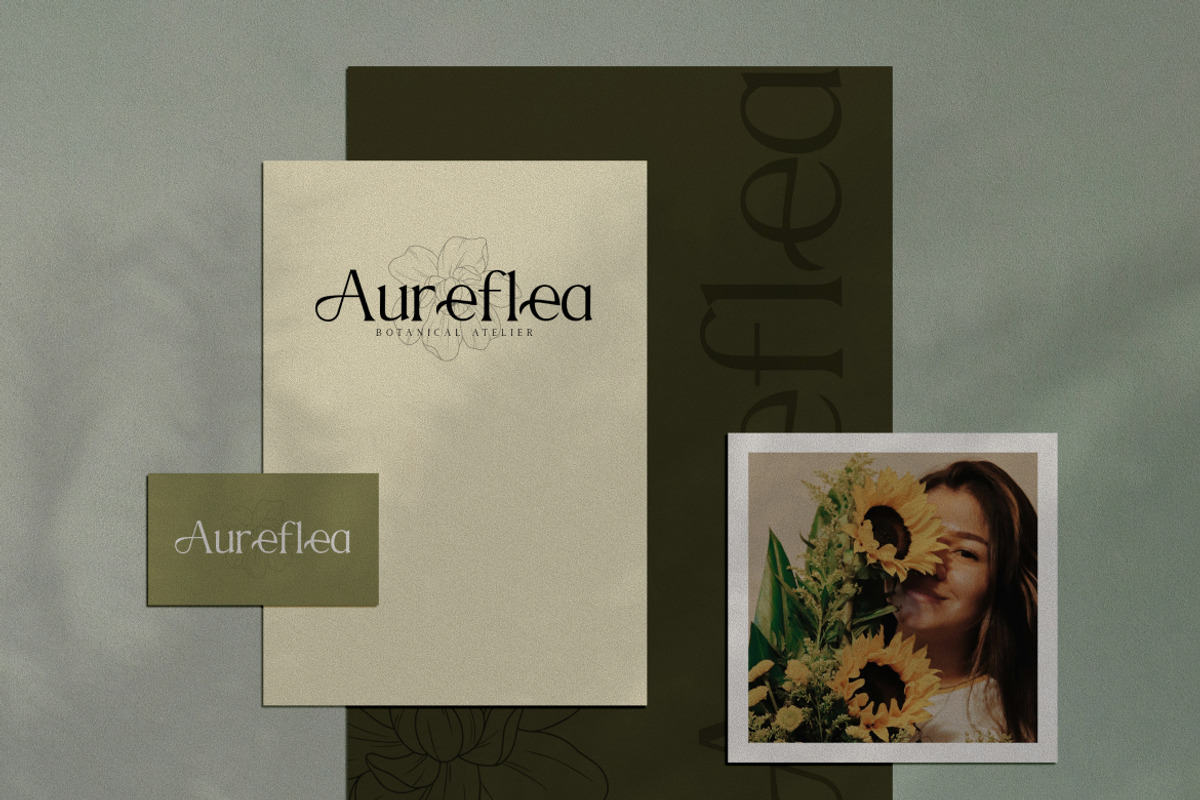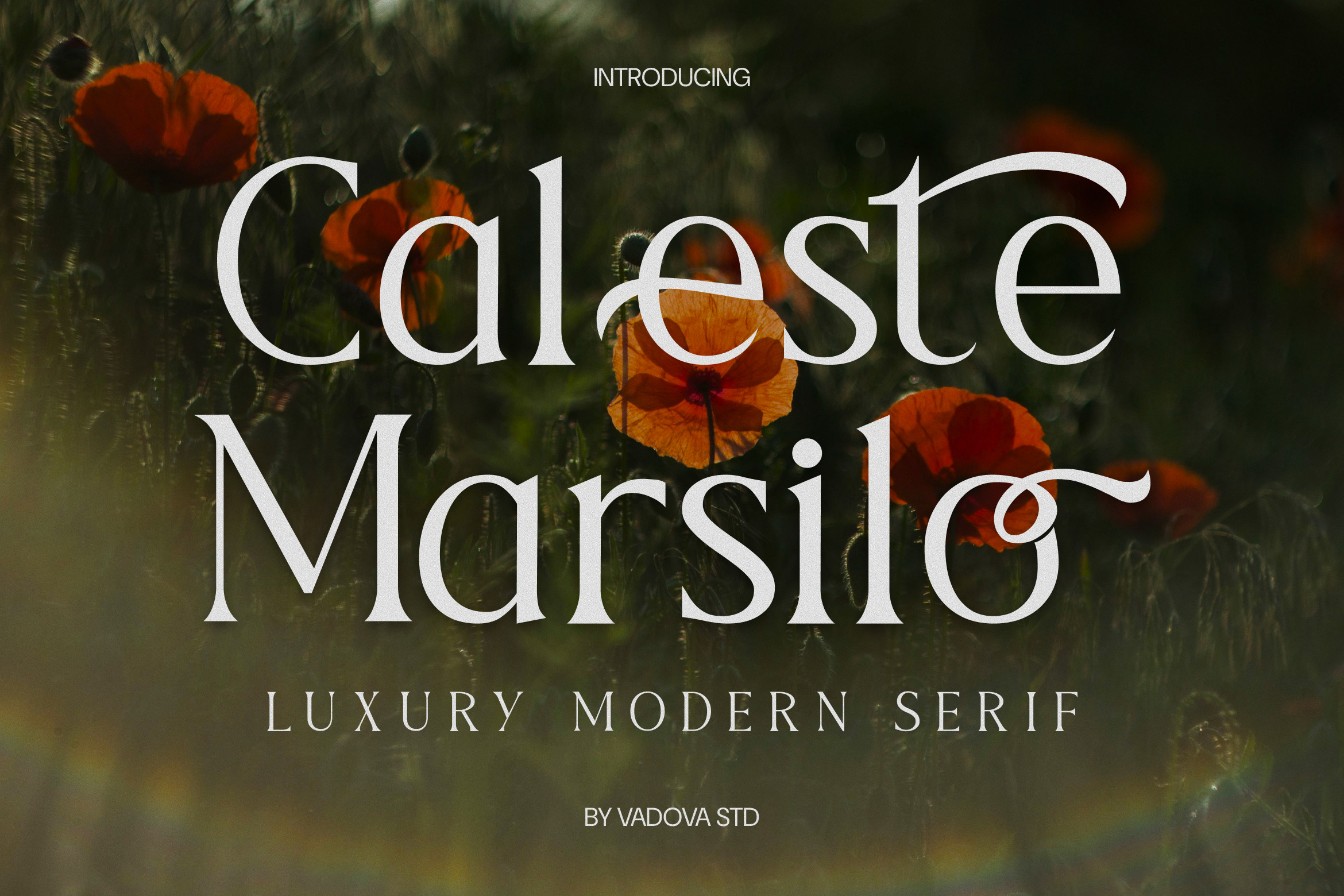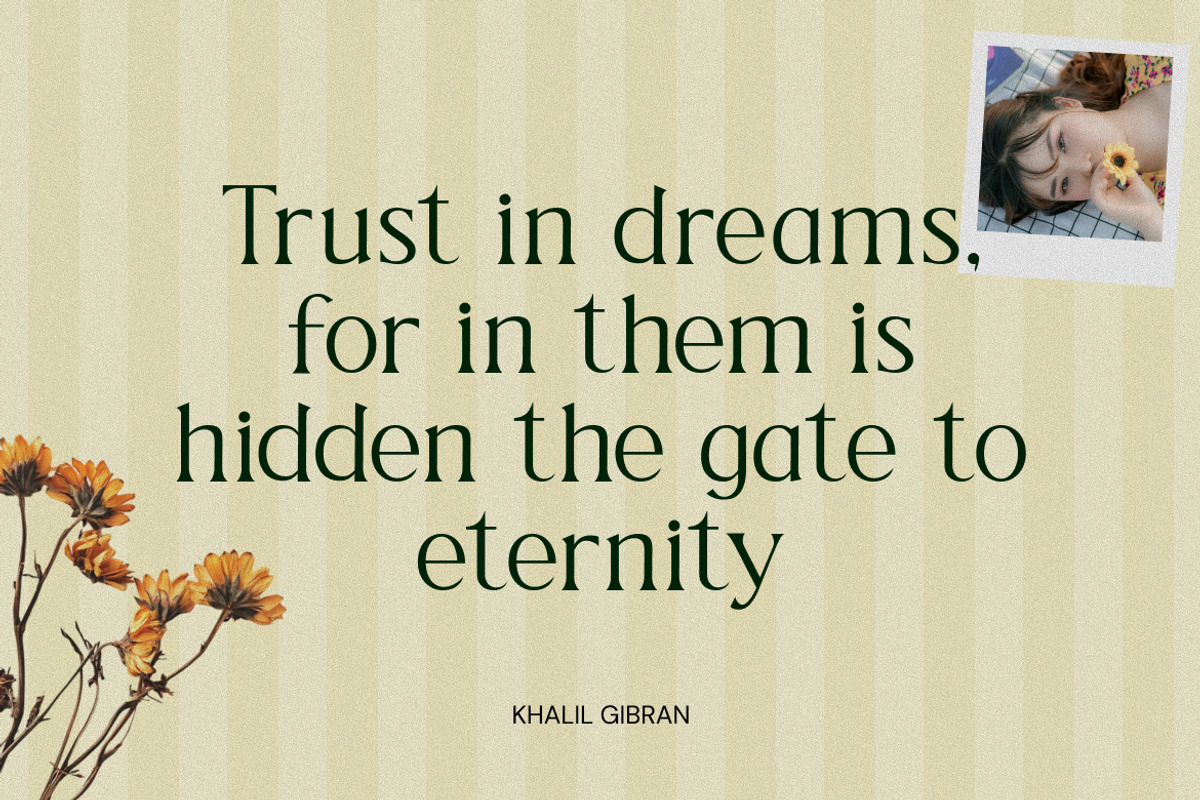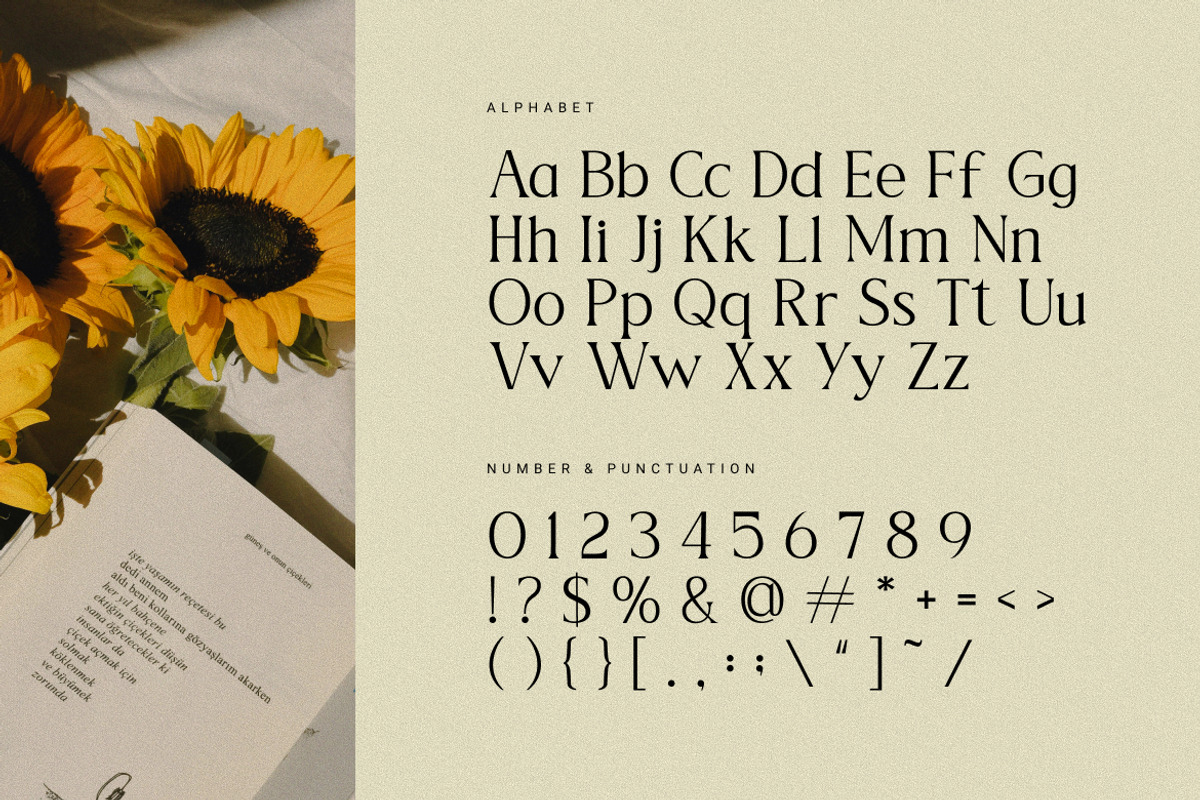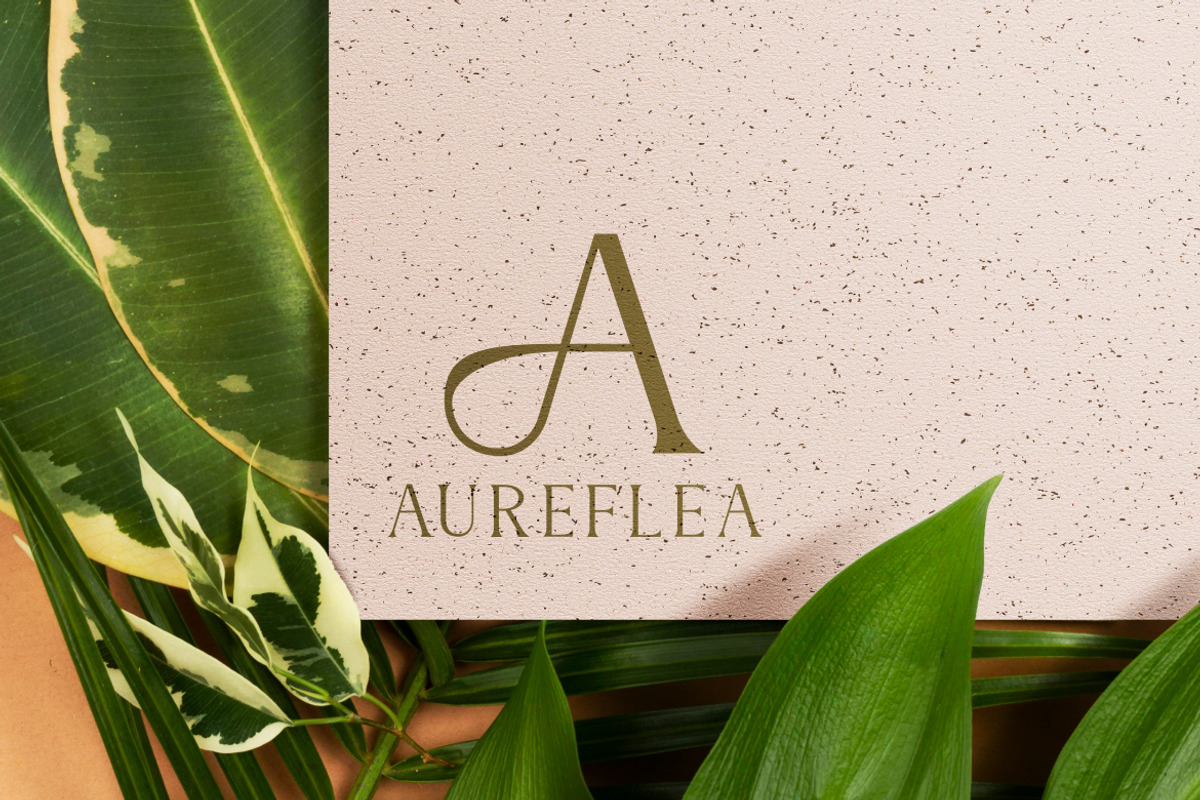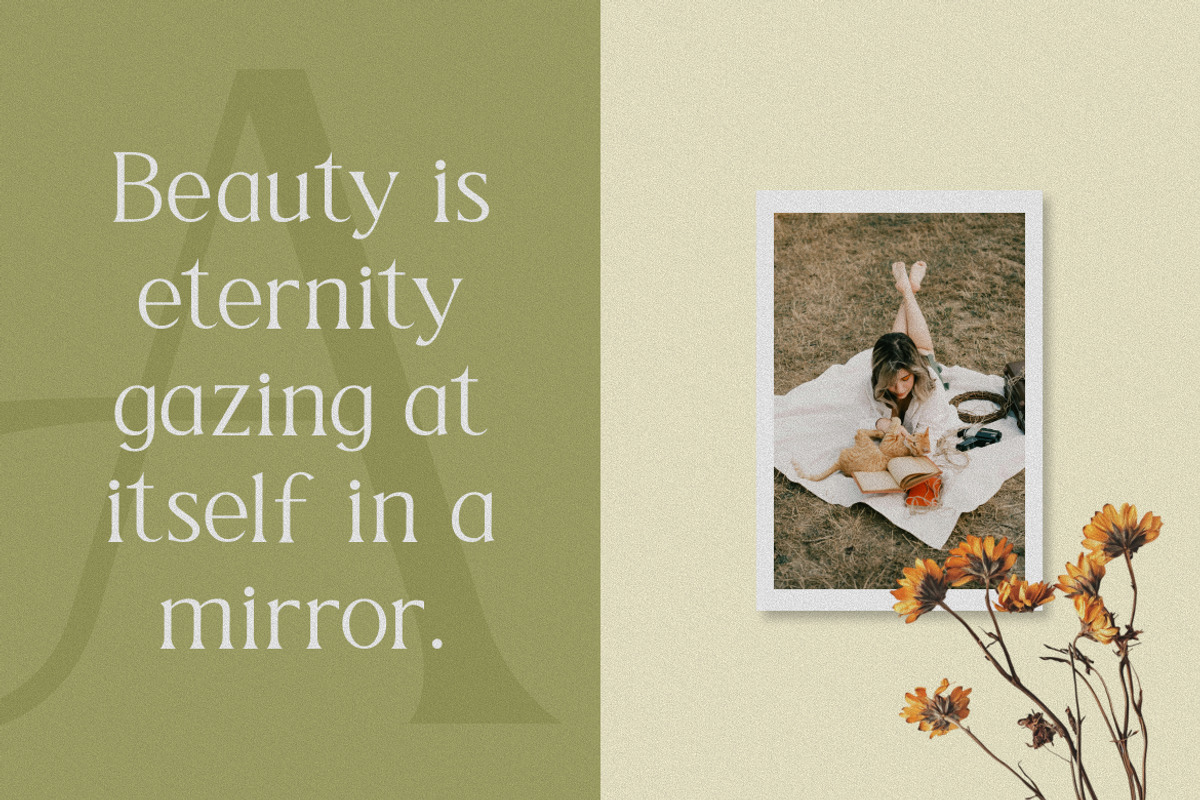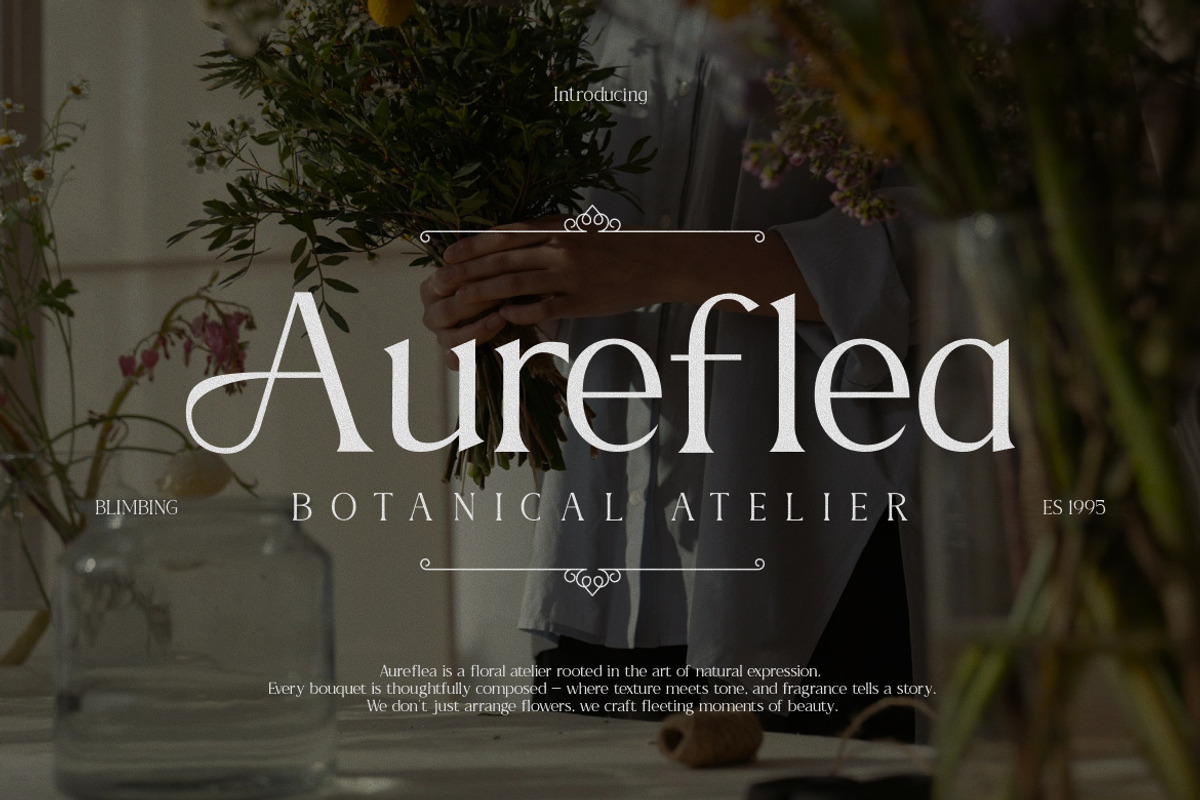
Caleste Marsilo Luxury Serif Font
Caleste Marsilo is a luxury modern serif typeface with a graceful presence and high-end appeal. This elegant font features a blend of sharp and smooth elements with refined curves, expressive ligatures, and well-balanced proportions. Included in the package are uppercase and lowercase letters, numbers, punctuation, and multilingual support. Caleste Marsilo is perfect for creating sophisticated branding, high-fashion editorials, upscale packaging, and graceful wedding stationery.
Caleste Marsilo is highly relevant for designers and brands aiming to communicate elegance, class, and modernity. Ideal for fashion lookbooks, luxury branding, magazine titles, wedding designs, and upscale packaging. Its stylish forms ensure visibility in both digital and print contexts, offering timeless sophistication across use cases.
- Elegant high-contrast serif with refined modern curves
- Unique character shapes with artistic swashes for visual flair
- Balanced proportions for luxurious yet readable appearance
- Subtle vintage influence blended with contemporary styling
- Ideal contrast between thick and thin strokes for dramatic effect
- High-end branding projects seeking an elegant and artistic look
- Editorial layouts in fashion magazines and literary journals
- Wedding invitations and luxury event stationery
- Boutique product packaging and upscale beauty labels
- Social media graphics and campaign headlines
Speak with style and sophistication let Caleste Marsilo add timeless charm to every word